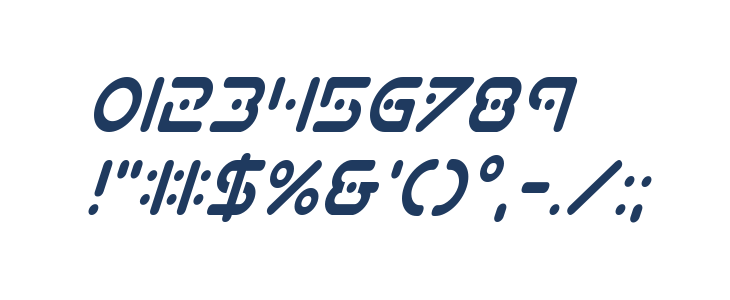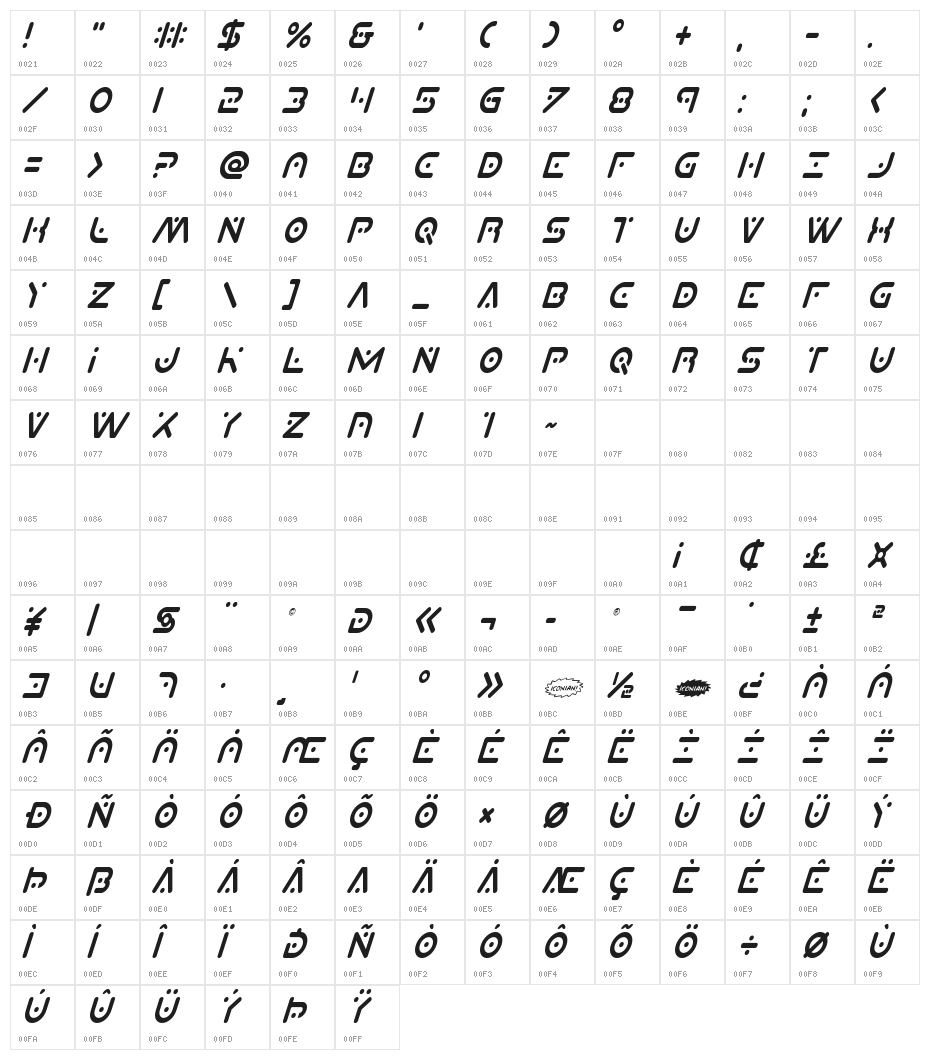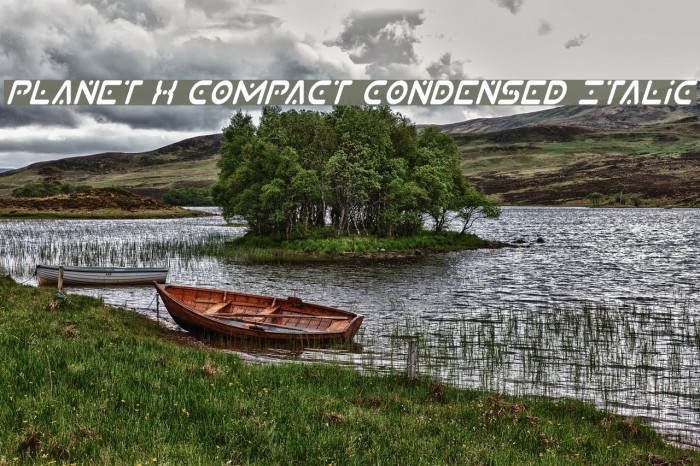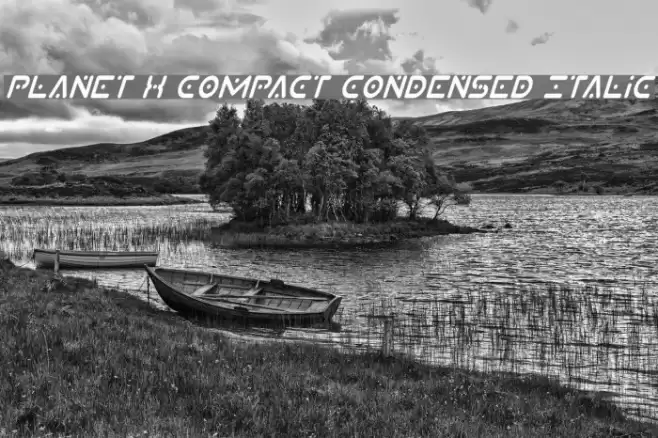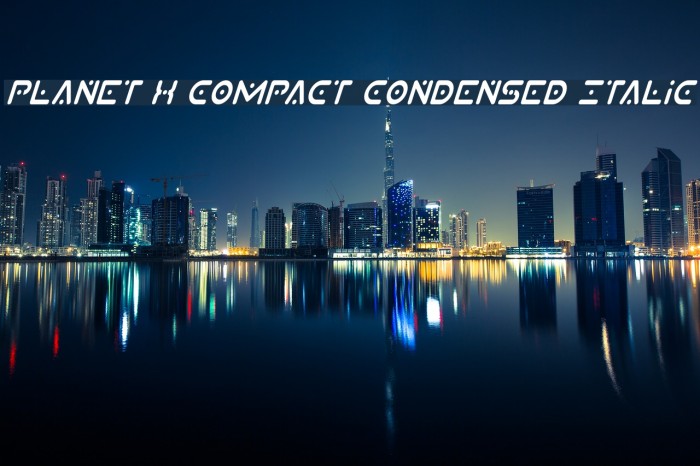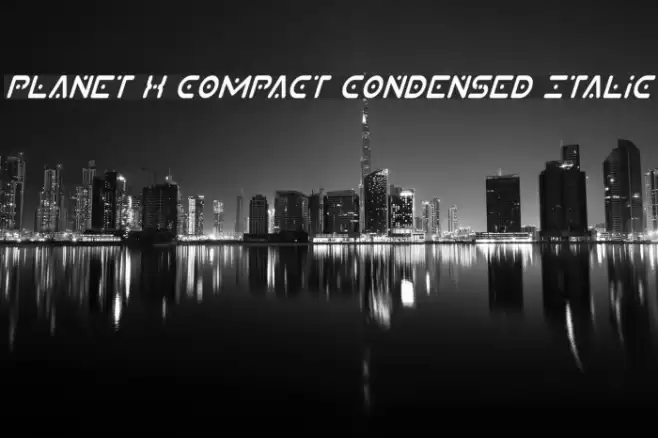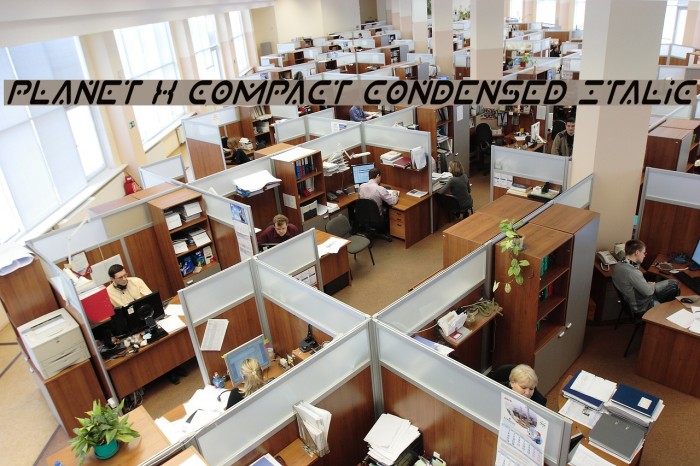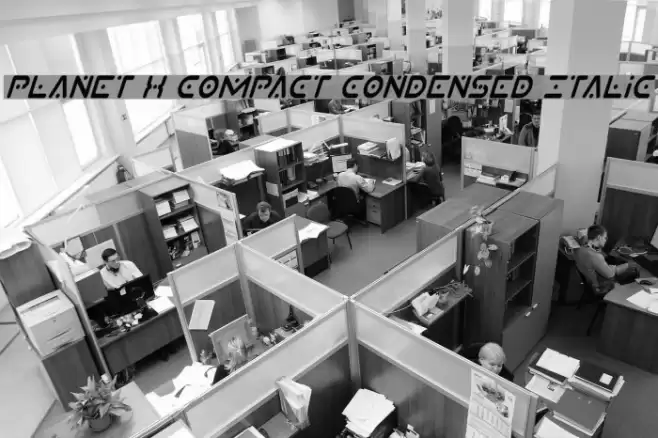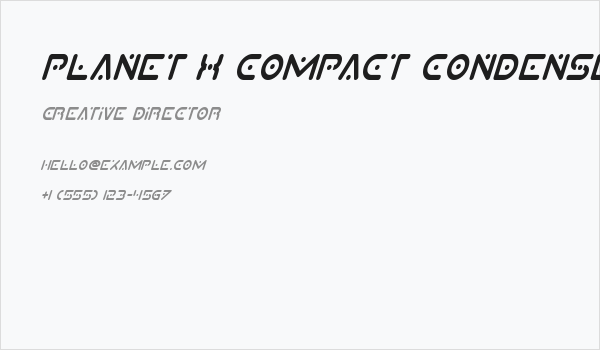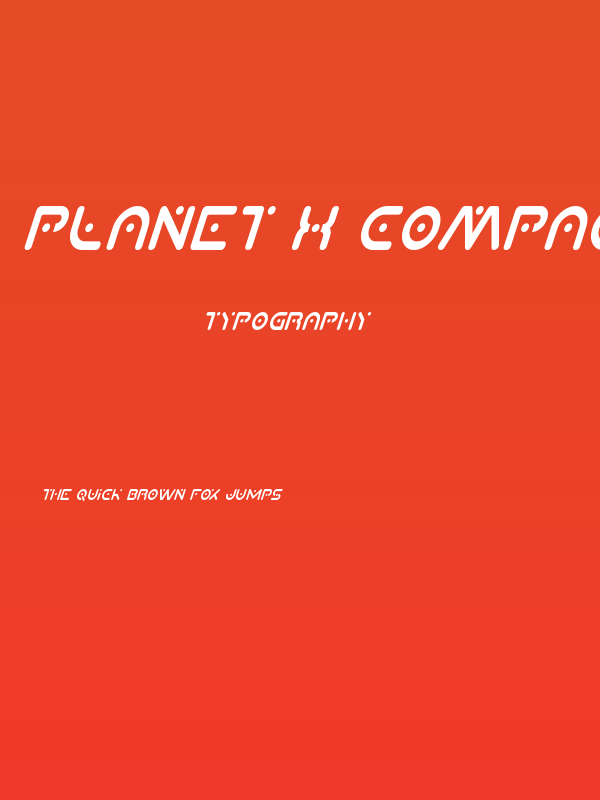
Planet X Compact Condensed Italic Font
Planet X Compact Condensed Italic Description
This futuristic font features a sleek, condensed design with a distinct italic slant, giving it a dynamic and forward-moving appearance. The characters are crafted with rounded edges and unique cut-out sections, adding a modern and innovative touch. The uppercase and lowercase letters maintain a consistent style, with a uniform stroke width that enhances readability. The numerals and special characters follow the same design principles, ensuring a cohesive look across all elements. This font's compact nature makes it ideal for space-saving applications while still maintaining a bold presence.
| Proposed Projects | Ideal for sci-fi themed projects, technology branding, futuristic posters, and innovative product packaging. |